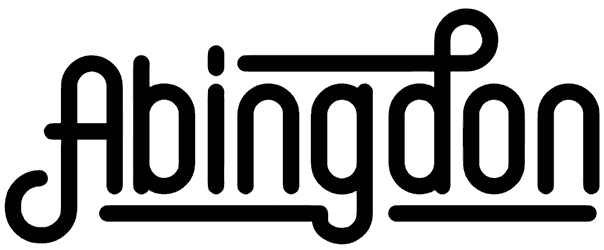
Abingdon Font
Instead of going to the end of the world to create an enjoyable impression for your content, simply use an 80s neon font. Here we give you Abingdon, which would be great for using in toy logos, children’s clothing, cartoons, and kids’ storybooks.
There are lots of opportunities that you should take advantage of with this typeface, which not only offers you four styles but also features 2 weights and no shortage in its collection of characters.
Abingdon is a great display font with a bold, modern charm. It will turn any vintage-themed design project into a stunner!